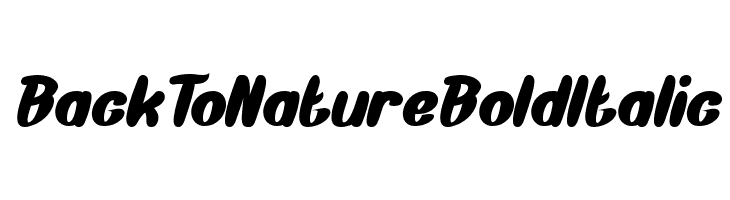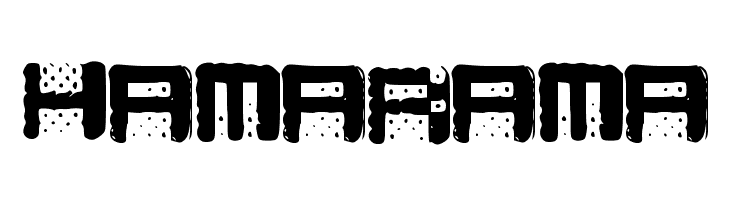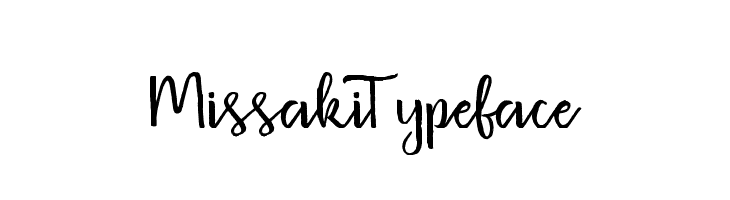
A bold, decorative font with maple leaf motifs inside each character.
A bold, three-dimensional brick-themed font with a playful and textured appearance.
A sophisticated and elegant script font with fluid, cursive letterforms.
An elegant serif font with elongated letterforms and a blend of classic and modern elements.
A bold, italic script font with a modern, handwritten style.
A bold, decorative font with geometric patterns and exotic flair.
A bold, playful font with a hand-drawn, shadowed style.
A whimsical and elegant font with swash elements and flowing lines.
A playful, hand-drawn font with a whimsical and informal style.